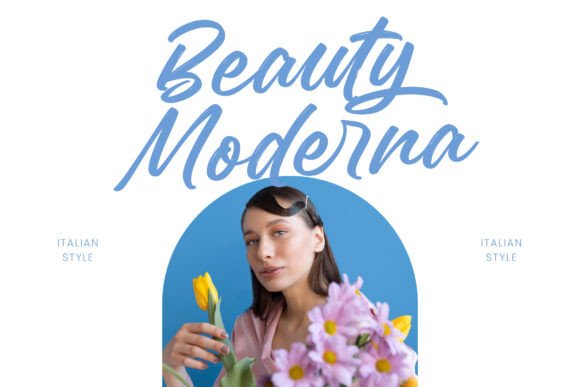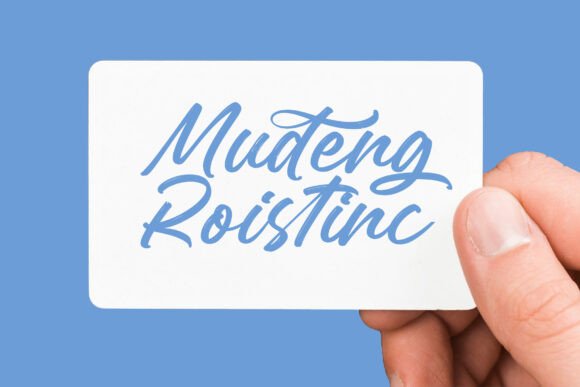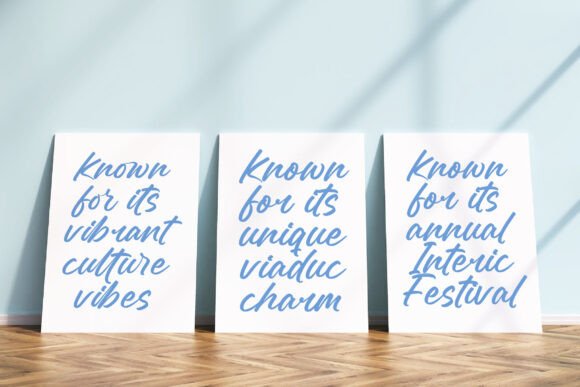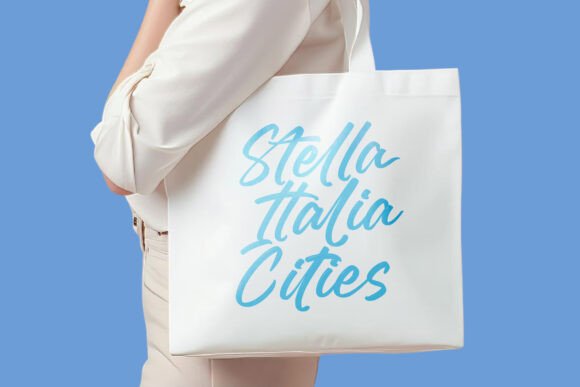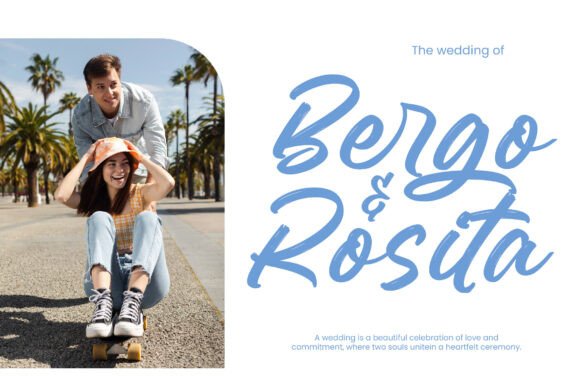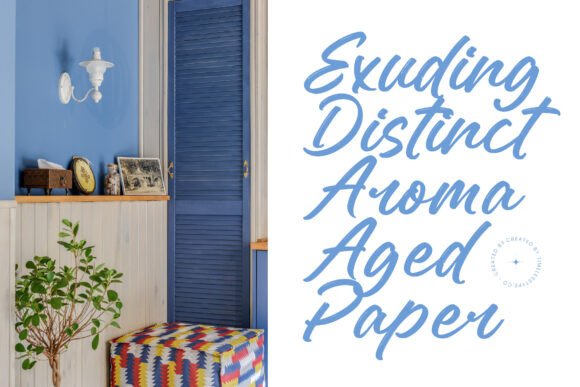
Introduction to Britany Ristov Font
Britany Ristov – Bold Brush Font , from Letterena, is a Luxury Script font, suitable for any projects such as: logos, branding projects, homeware designs, product packaging, mugs, quotes, posters, shopping bags, t-shirts, book covers, name card, invitation cards, greeting cards, label, photography, watermark, special events, and all your other luxury and beautiful projects that need a Luxury Script taste.
Key Features of Britany Ristov Font
Why Choose Britany Ristov Font?
Britany Ristov Font offers exceptional quality and versatility, making it a valuable addition to your design toolkit. Whether you’re creating for personal projects or commercial use, Britany Ristov Font delivers professional results.